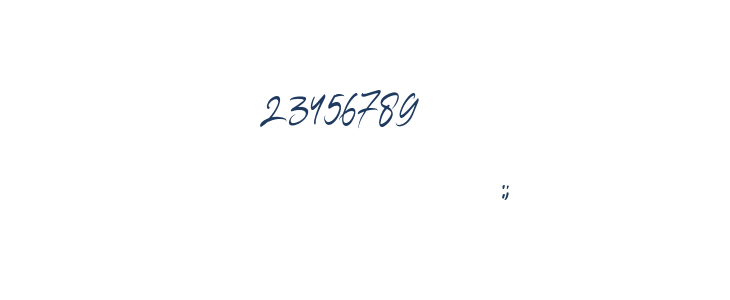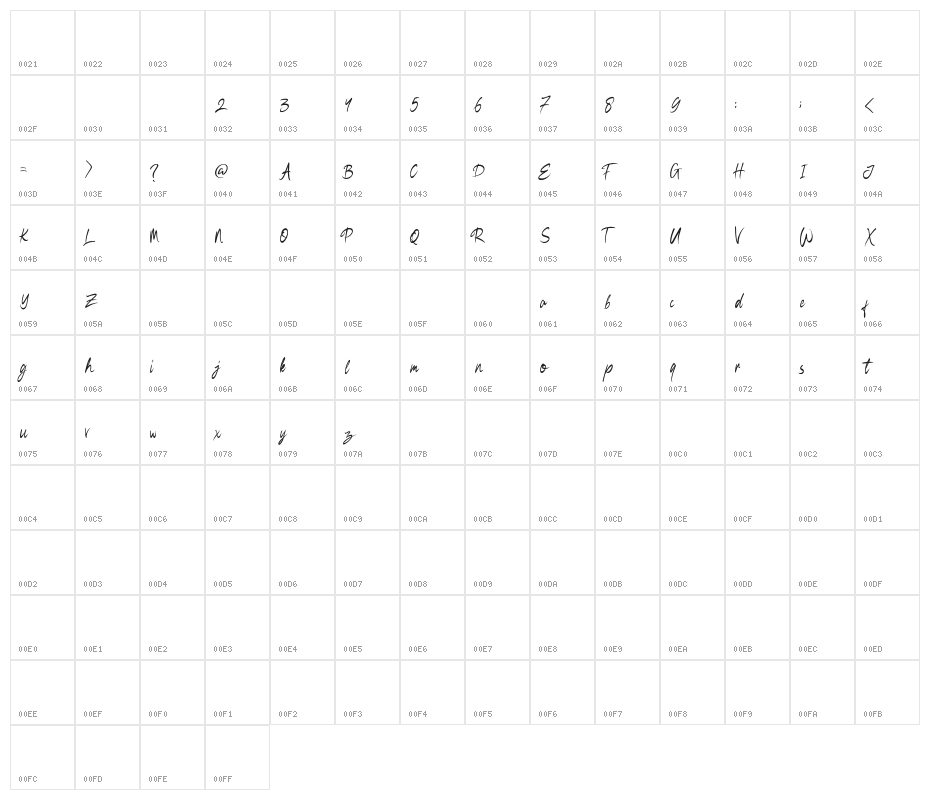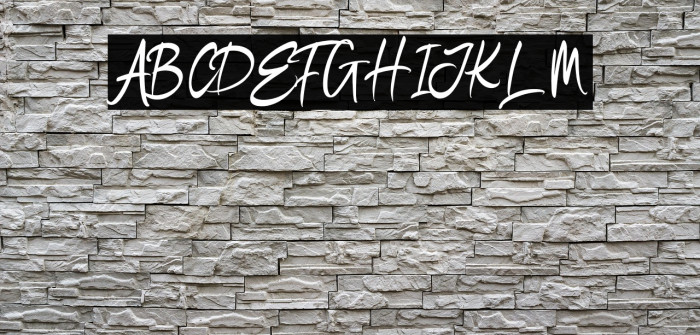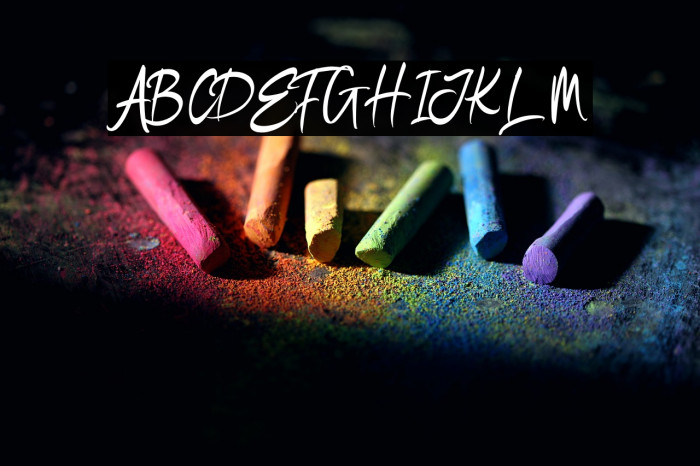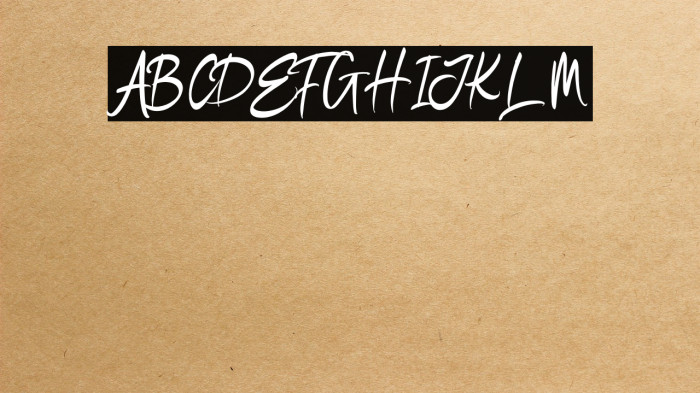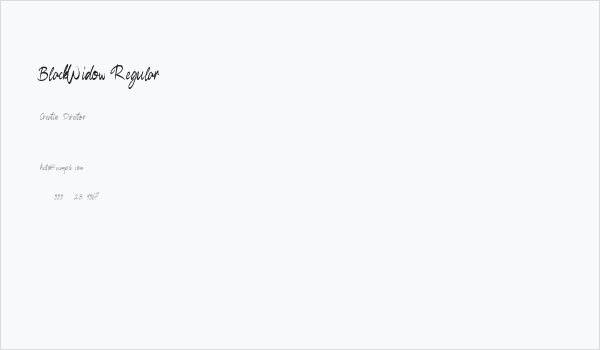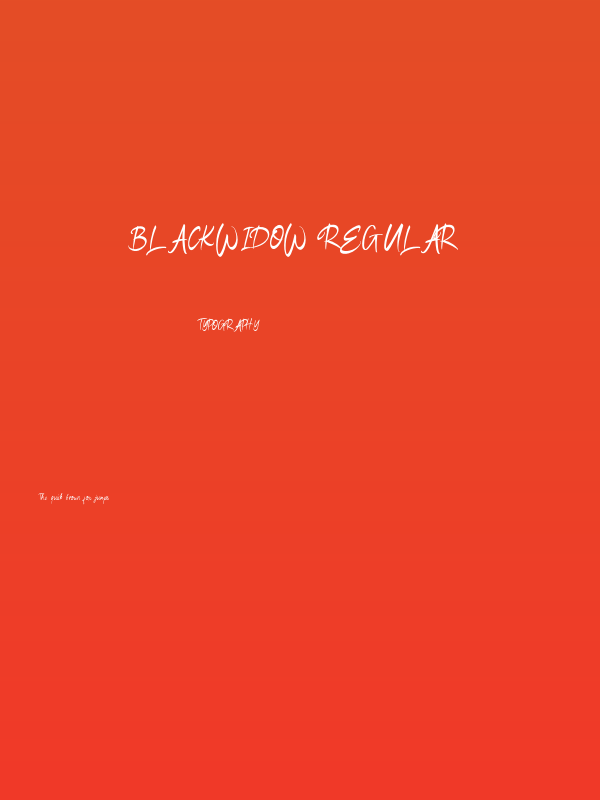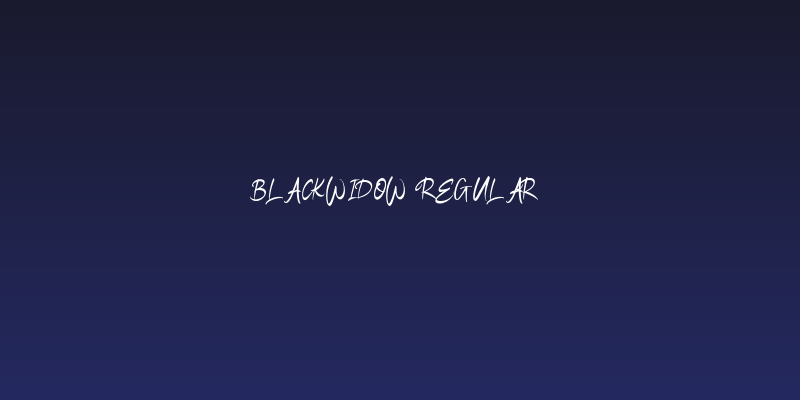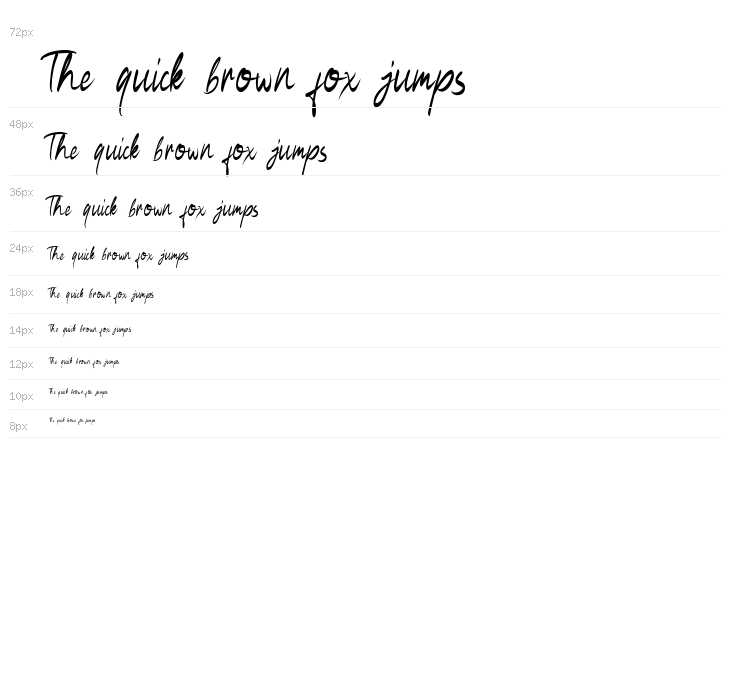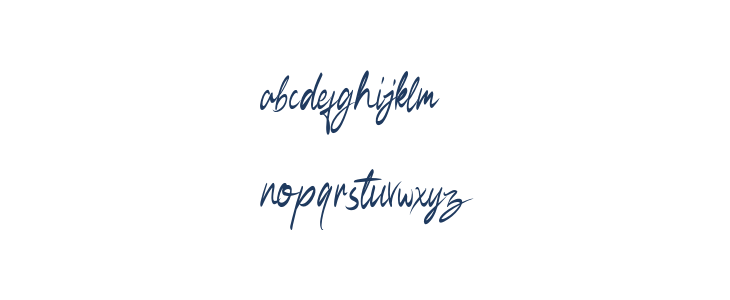
BlackWidow-Regular Font
BlackWidow-Regular Description
This font exhibits a dynamic and fluid handwritten style, characterized by its elegant and flowing script. The letters are interconnected, creating a sense of continuity and movement. The uppercase letters are bold and expressive, while the lowercase letters maintain a consistent fluidity. The numerals are distinct yet harmonize well with the overall script style. This font's design is both artistic and legible, making it suitable for creative and decorative applications. The strokes vary in thickness, adding a touch of sophistication and visual interest. It captures a sense of personal touch and creativity, ideal for projects that require a personal or artistic flair.
| Proposed Projects | Ideal for wedding invitations, greeting cards, personal branding, and artistic projects. |